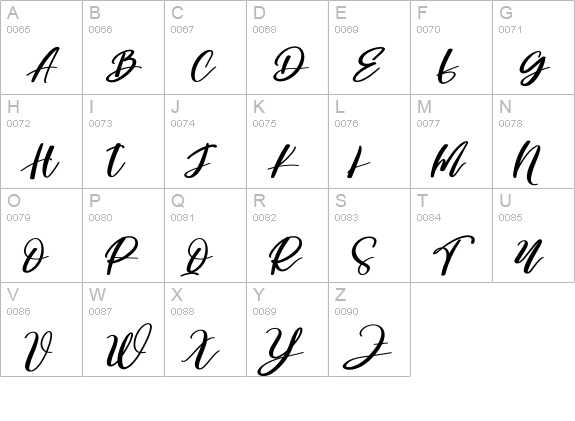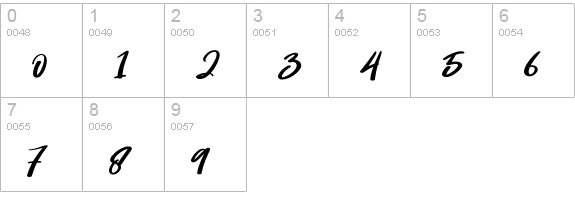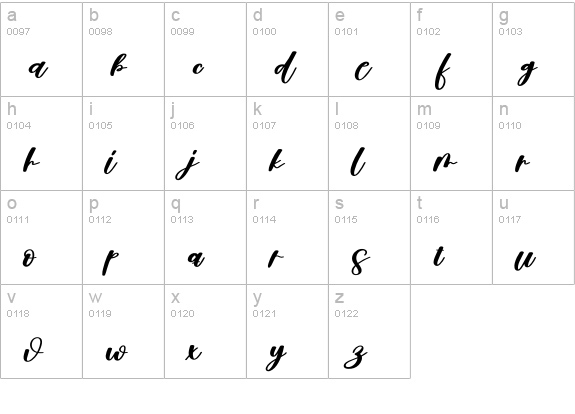
Wellove Font Details
Wellove is a free for personal use font in the Script > Handwritten category, designed by scratchones. It has been downloaded 33 times and is available for Windows, Mac and Linux.
Wellove font is a charming and elegant typeface that exudes a sense of warmth and sophistication. Its flowing curves and graceful lines make it a perfect choice for a wide range of design projects, from branding to invitations to social media graphics. The Wellove font is versatile and easy to read, making it suitable for both print and digital applications.